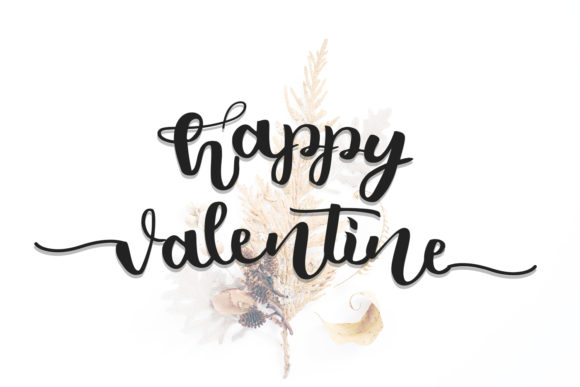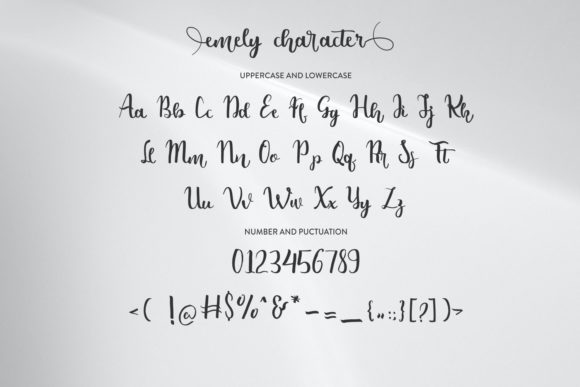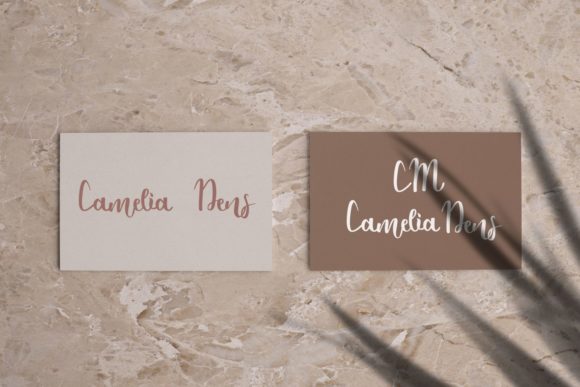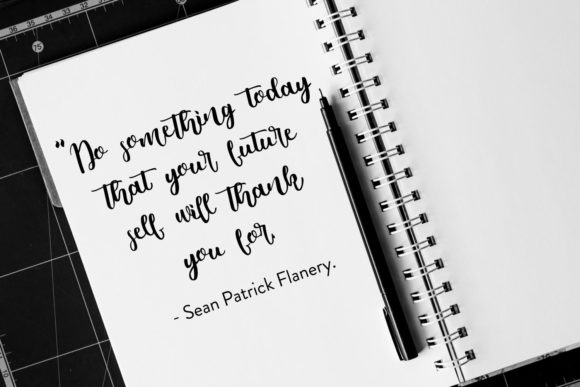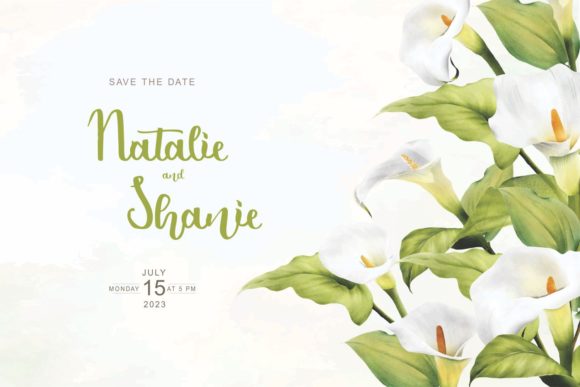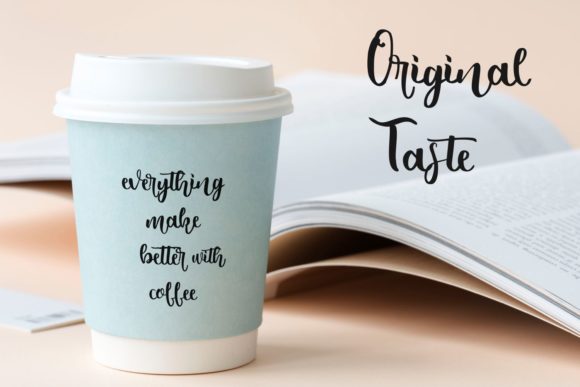
Introduction to Emely Bllosom Font Font
Fonts play a crucial role in design, and the Emely Bllosom Font font is a typeface that brings both character and versatility to any project. Whether you’re working on a branding project, a website, or a print design, the Emely Bllosom Font font offers a unique style that can elevate your work.
Emely Bllosom is a fun and bouncy handwritten font.
Use it to make your ideas even more realistic and create spectacular designs This font is PUA encoded which means you can access all of the glyphs and swashes with ease.
Key Features of Emely Bllosom Font Font
Why Choose Emely Bllosom Font Font?
The Emely Bllosom Font font is more than just a typeface – it’s a design tool that helps you communicate your message with style and clarity. Its unique character set and versatile design make it suitable for a wide range of applications, from elegant invitations to bold headlines.
With its carefully crafted letterforms and balanced proportions, the Emely Bllosom Font font ensures readability and visual appeal across all mediums.
What makes Emely Bllosom Font font special?
The Emely Bllosom Font font stands out with its unique design, exceptional readability, and versatility across various design applications.